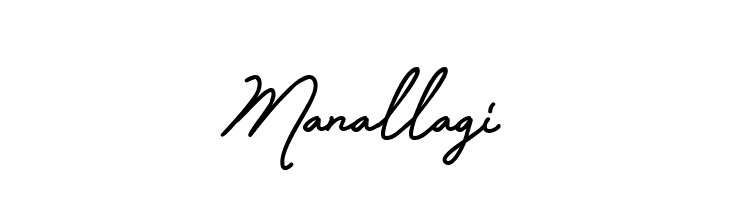
A dynamic and fluid script font with elegant, flowing letterforms.
A delicate, flowing script font with elegant, connected strokes.
A playful and whimsical script font with flowing, interconnected letters.